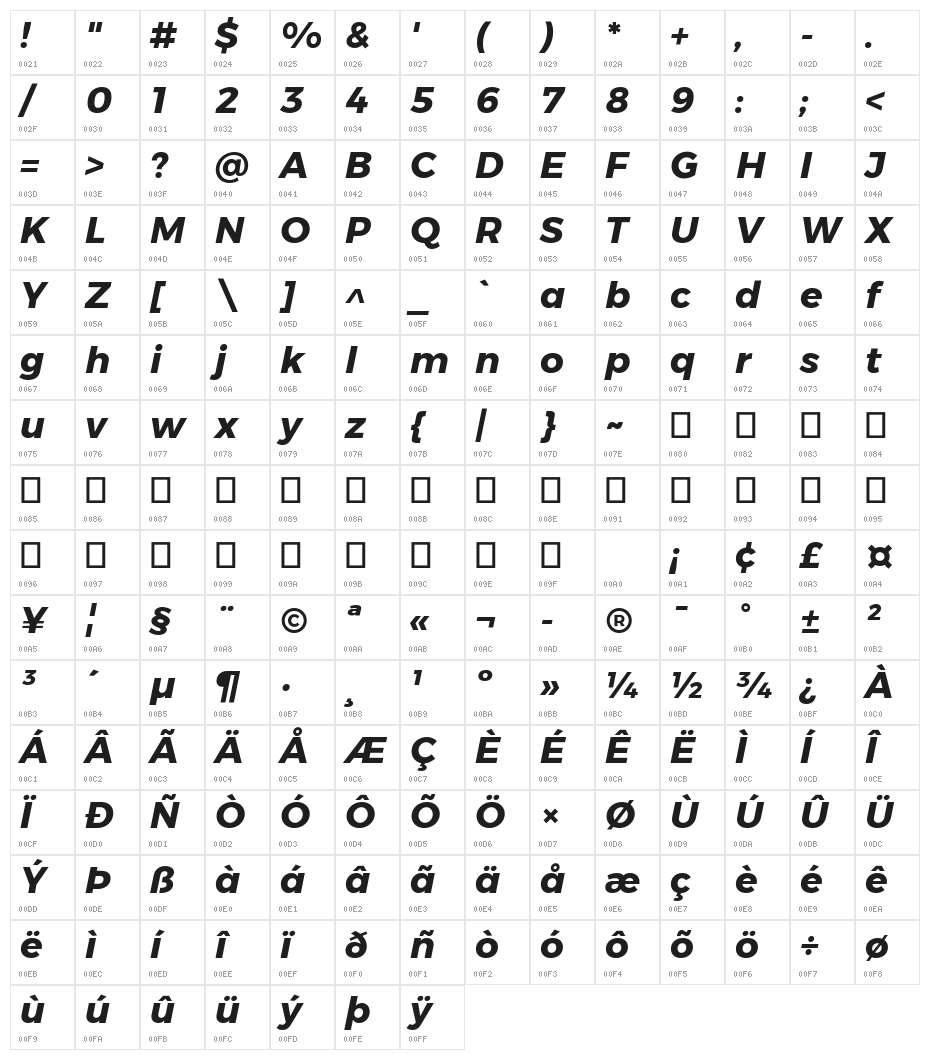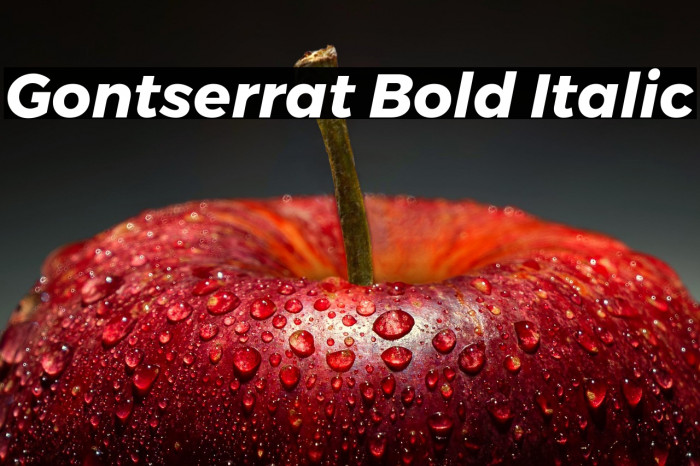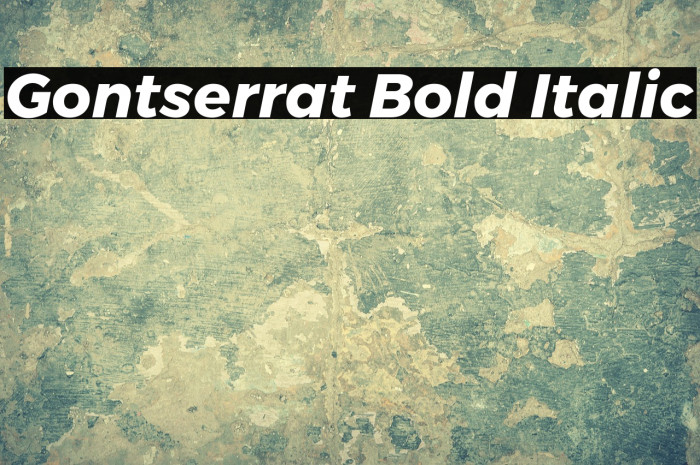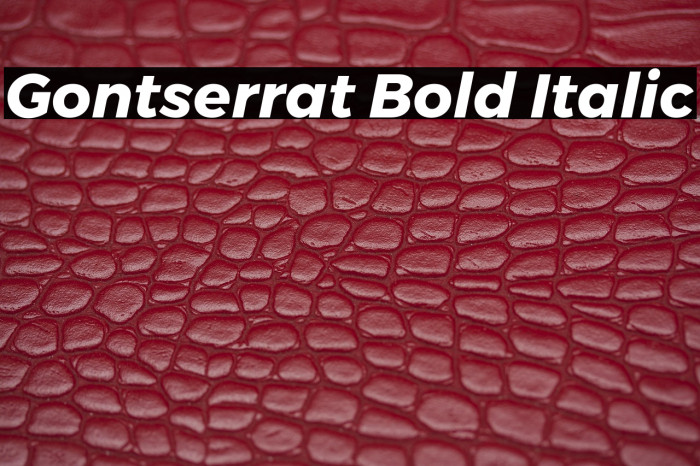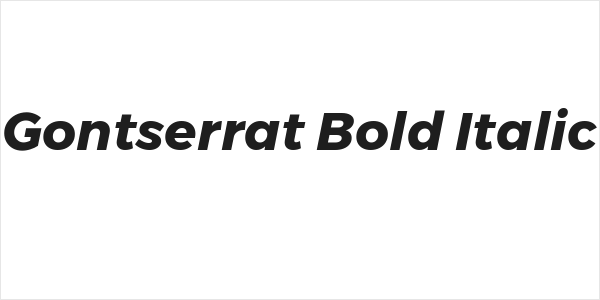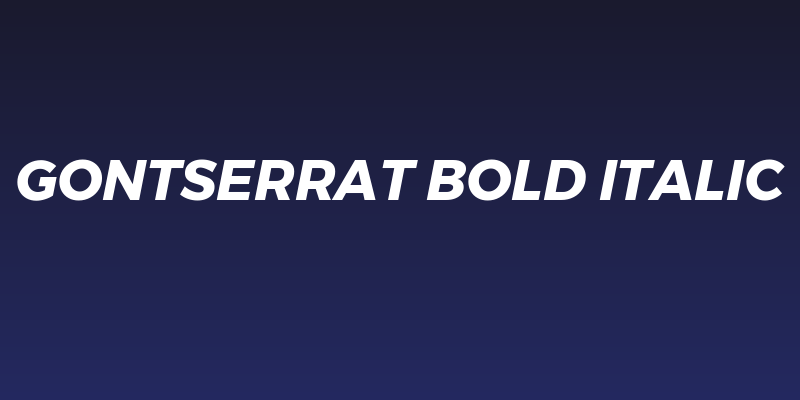
Gontserrat Bold Italic Font
Gontserrat Bold Italic Description
This typeface features a bold and italic style, combining a modern and clean aesthetic with a slight slant that adds dynamism and emphasis. The characters are well-defined with smooth curves and sharp edges, providing a strong presence. The uppercase letters are uniform in height, while the lowercase letters maintain a consistent baseline, ensuring readability. The numerals are proportional, matching the overall style of the alphabet. Special characters are distinct and easily recognizable, enhancing the font's versatility. The design is suitable for digital and print media, offering a contemporary look that is both professional and approachable.